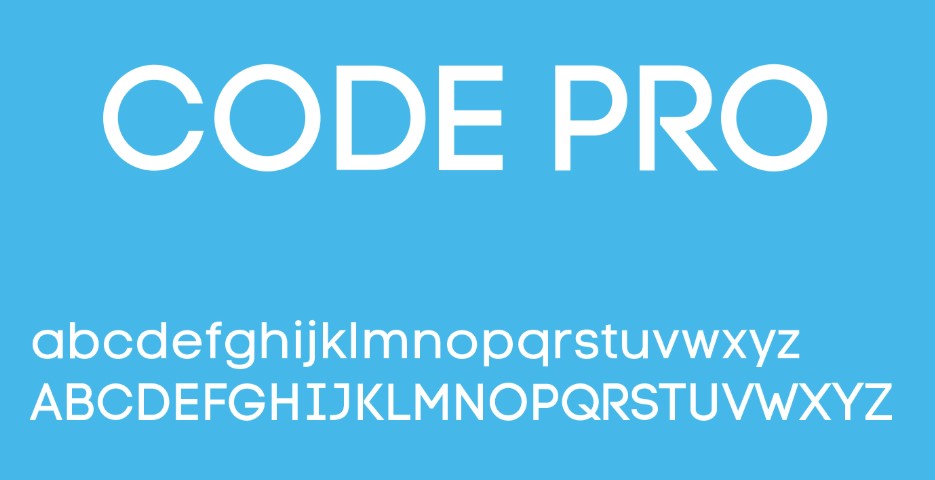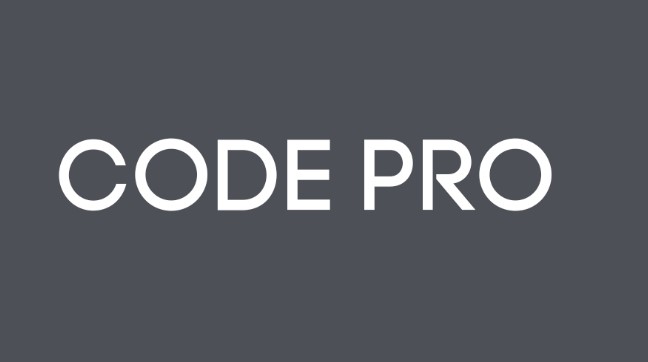
Code Pro Font
Code Pro Font is widely popular for its bold and italic function. This typeface is present inside Microsoft word. This is also known as Source code pro font. The likeness of this font varies amongst professionals as some of the rewards it for its proper and easy display, even as others argue that the spacing among characters is barely tight.
Something greater than so that you can just appearance messy and circus-like. It’s an elegant unfastened font that functions a traditional sans serif design. This will be considering the function versions among designers. Code Pro Font Free While experts have an eye to each detail that is why they classify and use pt sans font in keeping with the scope and purpose of a project.